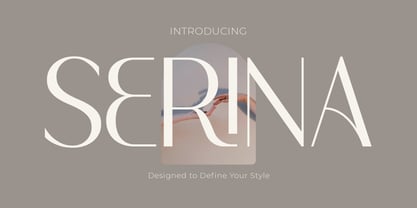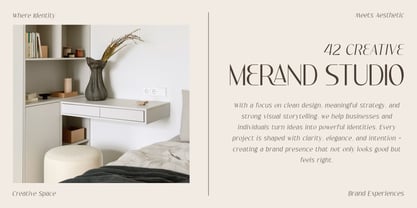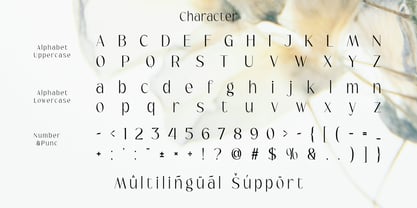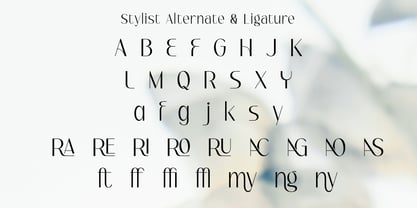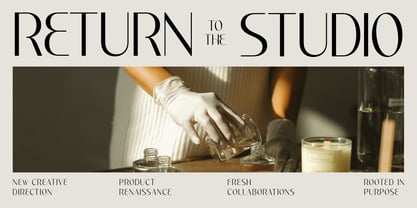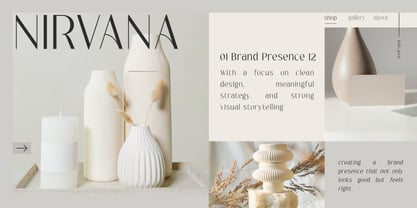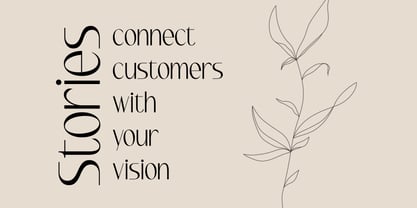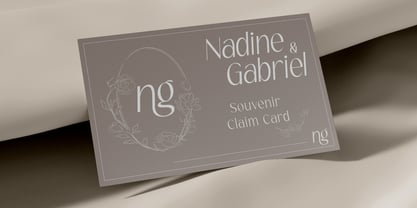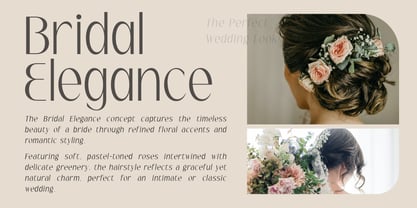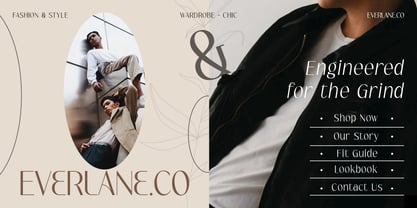
Serina
The Serina Font Family was designed by Bakhrudin Ja'far and published by Jafar07. Serina contains 2 styles and family package options. More about this family
Serina is a modern elegant sans serif typeface crafted to elevate brand aesthetics across fashion, editorial, and luxury niches. Its refined structure, featuring stylish ligatures and confident curves, delivers a timeless yet trendy look suitable for everything from Instagram branding to high-end product packaging. With its graceful letterforms and attention to detail, Serina is perfect for projects that demand a soft yet professional tone making it a must-have for designers working with boutique labels, bridal content, or minimalist beauty lines.
Designed with creative professionals in mind, Serina offers a complete set of uppercase and lowercase letters, numbers, punctuation, and multilingual support, allowing you to create dynamic compositions with ease. The inclusion of alternate characters and elegant ligatures adds depth and variation, letting your headlines and logotypes stand out with personalized flair. Whether used in social media content, magazine layouts, or website headers, this font brings a sophisticated voice to your visual storytelling.
Versatile and stylish, Serina is more than just a typeface it’s a design solution tailored for impact. Its sleek sans serif style ensures it remains memorable, readable, and visually stunning in any format. Elevate your work with Serina and let every word speak volumes about your brand’s identity.
A little from my personal design & background: My name is Bakhrudin Ja'far, I live in Malang, Indonesia. I am currently completing my degree in visual communication design and I have worked as a lettering artist and logo designer for many years. I finally started my studio called roocspace creative lab (jafar07) Studio a few months ago and with my team made my letters into typography.